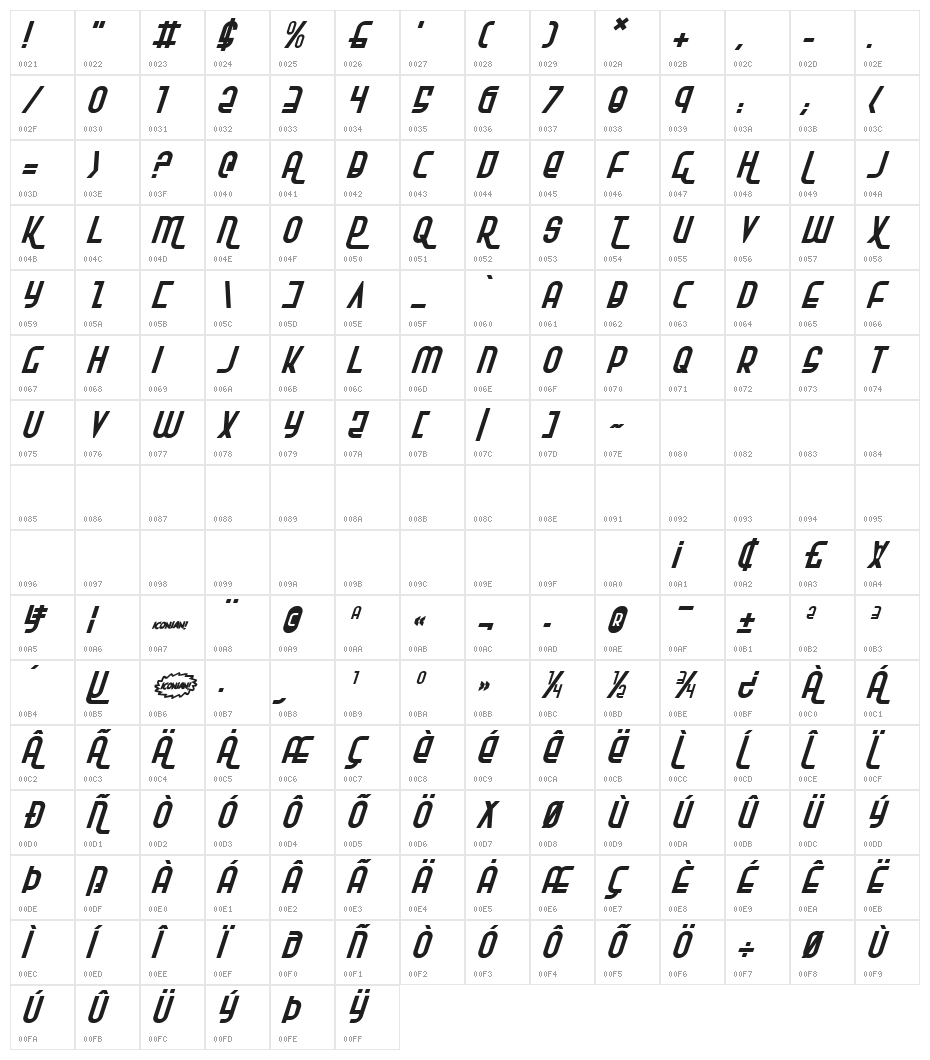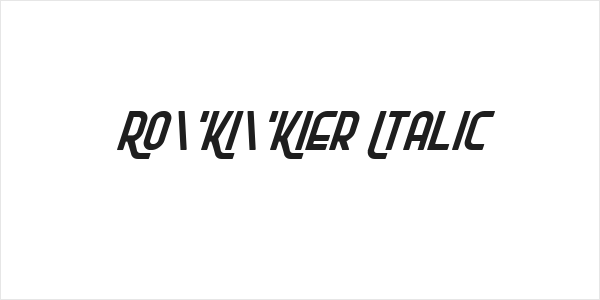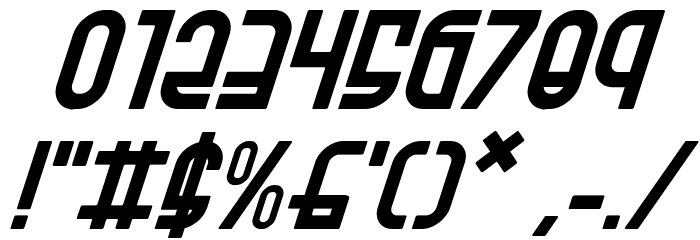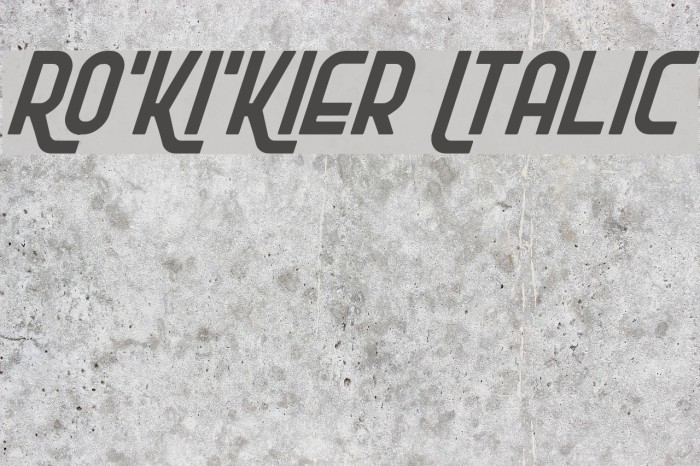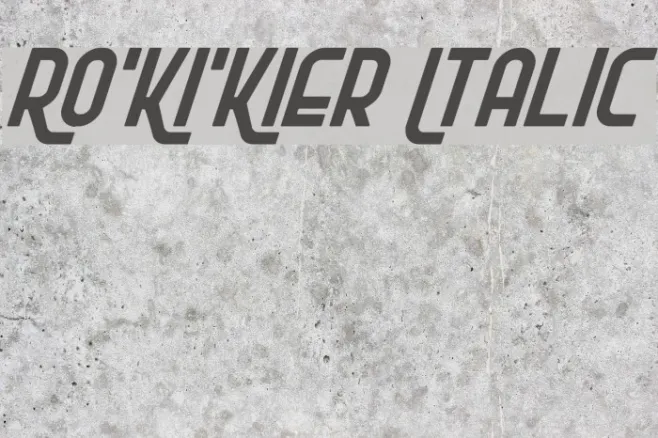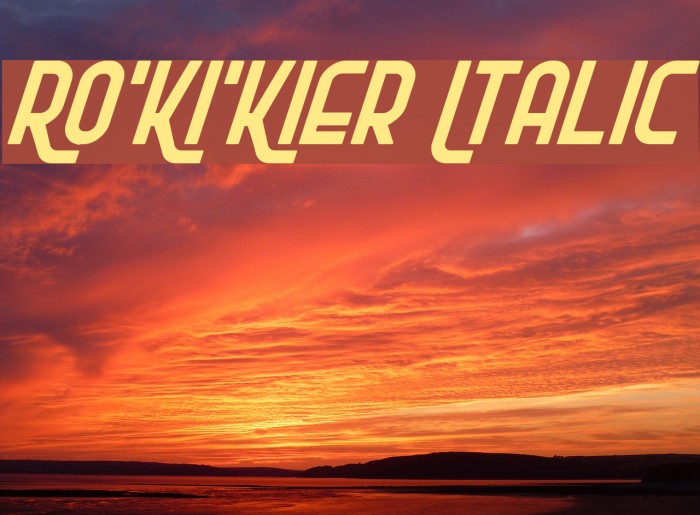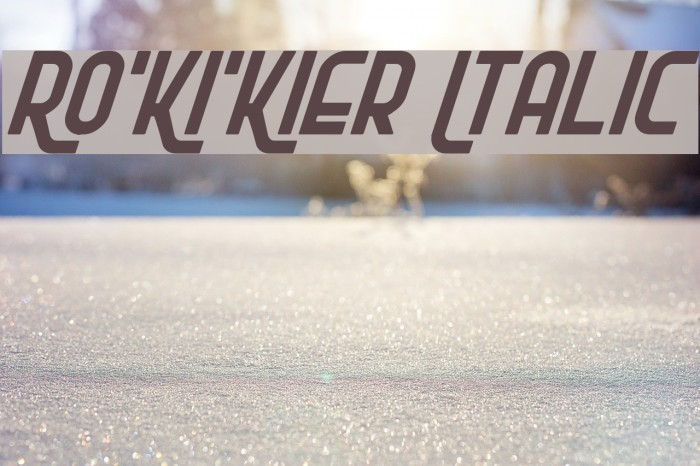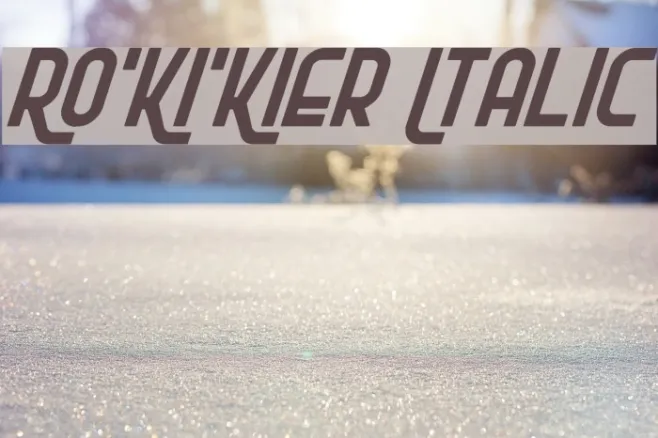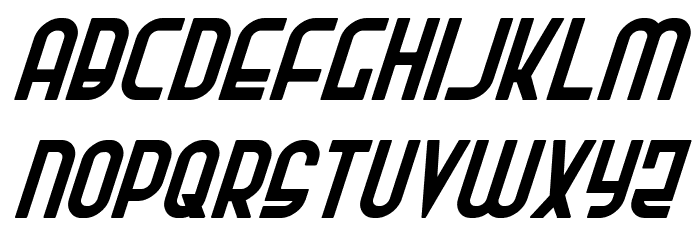
Ro'Ki'Kier Italic Font
| Cas d'utilisation | Headlines, Logos, Branding |
| Projets proposés | Ideal for branding, advertising, sports team logos, and any project needing a modern, energetic typeface. |
Ro'Ki'Kier Italic